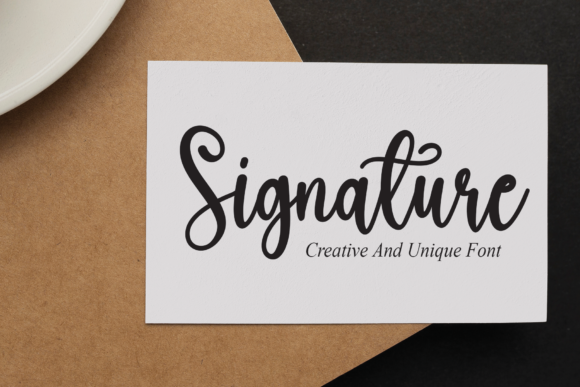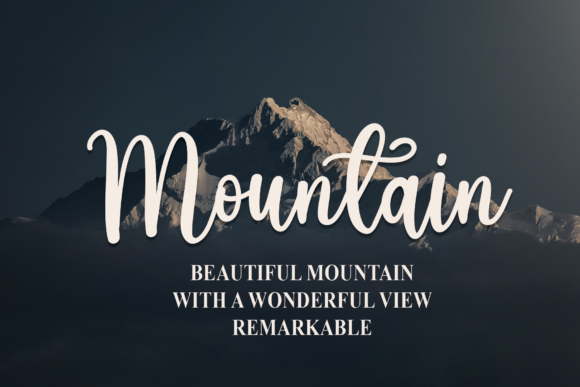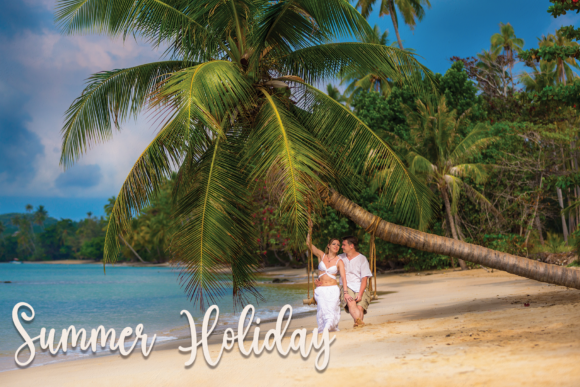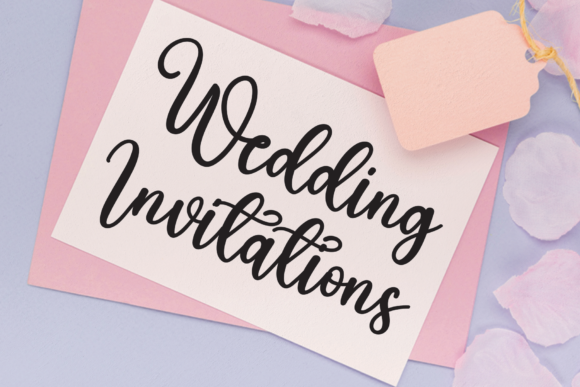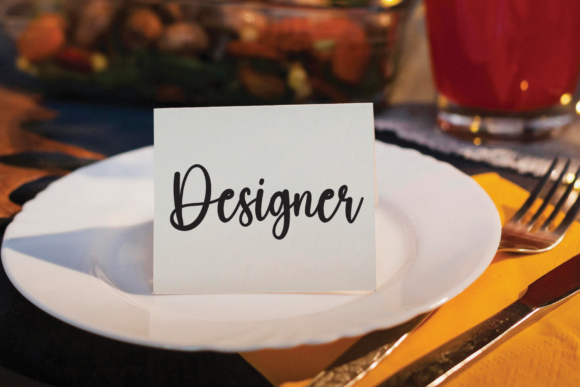
Surprise Font
About Surprise Font
Surprise is a gorgeous and fashionable script font. Fall in love with its incredibly versatile style and use it to create gorgeous wedding invitations, beautiful stationary art, eye-catching social media posts, and much more!